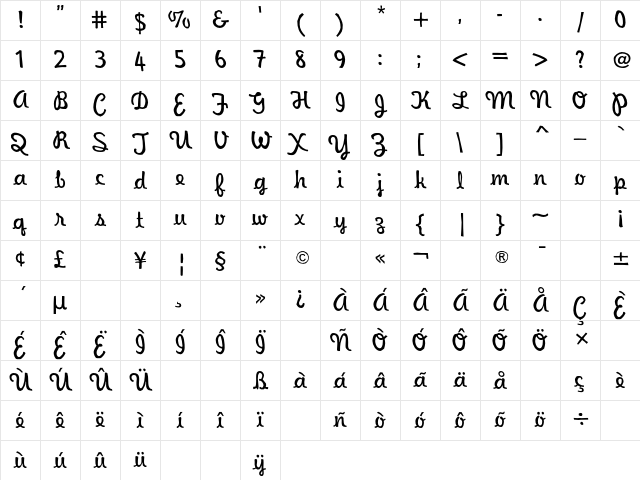
WaveeWeekend OriginalPrototype Free Font
WaveeWeekend OriginalPrototype
Style: OriginalPrototype
WaveeWeekend Family
WaveeWeekend OriginalPrototype
Design Context for WaveeWeekend
WaveeWeekend is a composed and adaptable typeface that performs quietly and consistently across a wide range of design contexts.